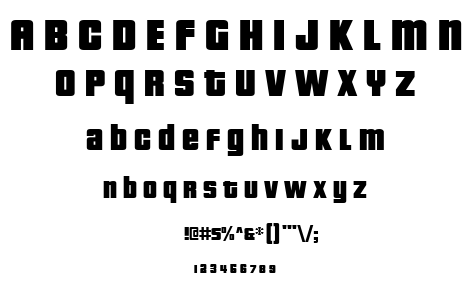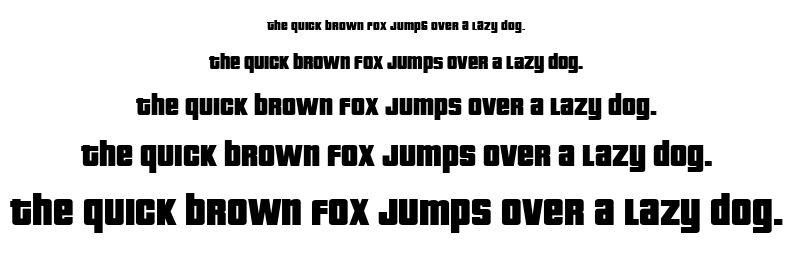
Pricedown, originally a single weight display font, released in the late 1990s has been rebuilt, expanded and improved. Don’t forget to read the files inside the zip for details. Updated in 2012.
Pricedown contains OpenType automatic ligatures for producing FUNK effects. If you want to reduce the funk, turn off the “standard ligatures” feature in the OpenType menu of your application. This effect is only available in OpenType savvy applications.